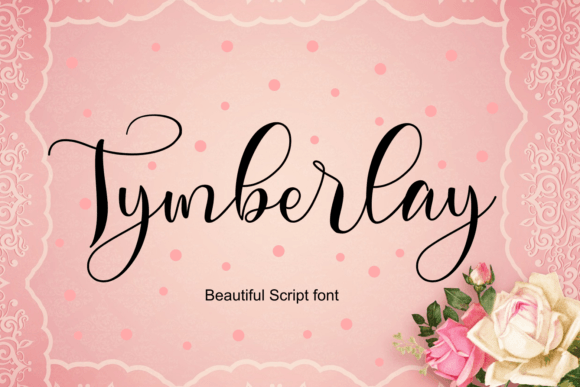
Embark on a typographic journey with Tymberlay Font, a breathtaking script font that seamlessly blends charm and elegance. Created by the renowned Infontree, Tymberlay is the epitome of sophistication, exuding a handwritten allure that will captivate you from the first stroke.
With its graceful curves and impeccable flow, Tymberlay is the perfect companion for a wide range of design endeavors. Envision your wedding invitations adorned with Tymberlay's delicate embrace, or your thank-you cards expressing heartfelt gratitude in a truly unique manner. Quotes and greeting cards will come alive with Tymberlay's charm, while logos and business cards will exude professionalism and creativity.
The possibilities with Tymberlay are endless, whether you're a seasoned designer or just starting your creative journey. Its versatility shines in every application, adding a touch of elegance and sophistication that will leave a lasting impression.
So, embrace the allure of Tymberlay Font and let your designs bloom with beauty and charm. From wedding invitations to business cards, Tymberlay will elevate your creations to new heights of visual appeal. Let your imagination soar and experience the transformative power of Tymberlay Font today!